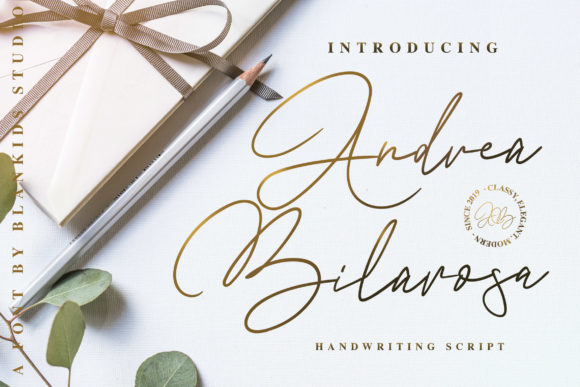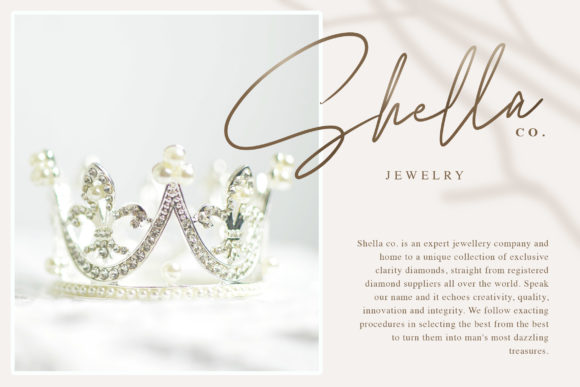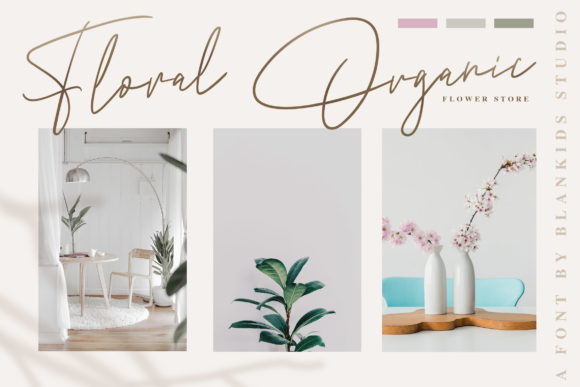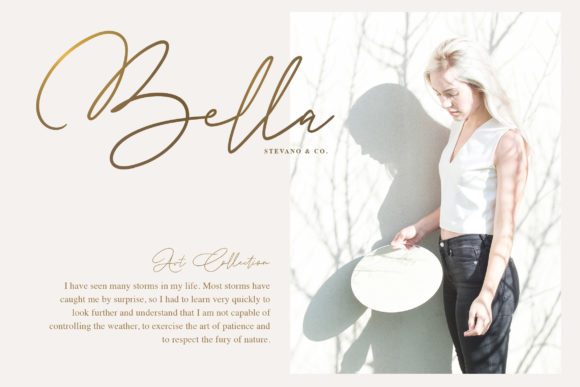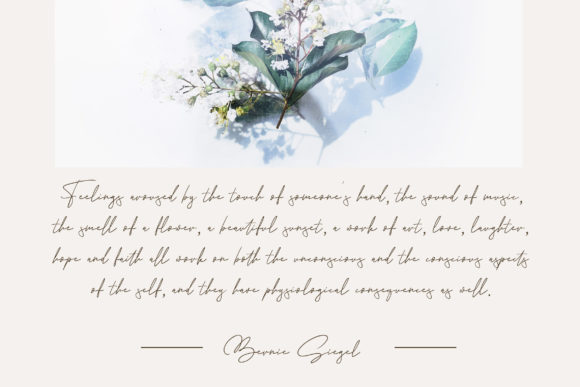
Andrea Belarosa Font
About Andrea Belarosa Font
Andrea Belarosa is a brand new handwritten script font.
Fall in love with its authentic feel and use it to create gorgeous wedding invitations, beautiful stationary art, eye-catching social media posts, and cute greeting cards.